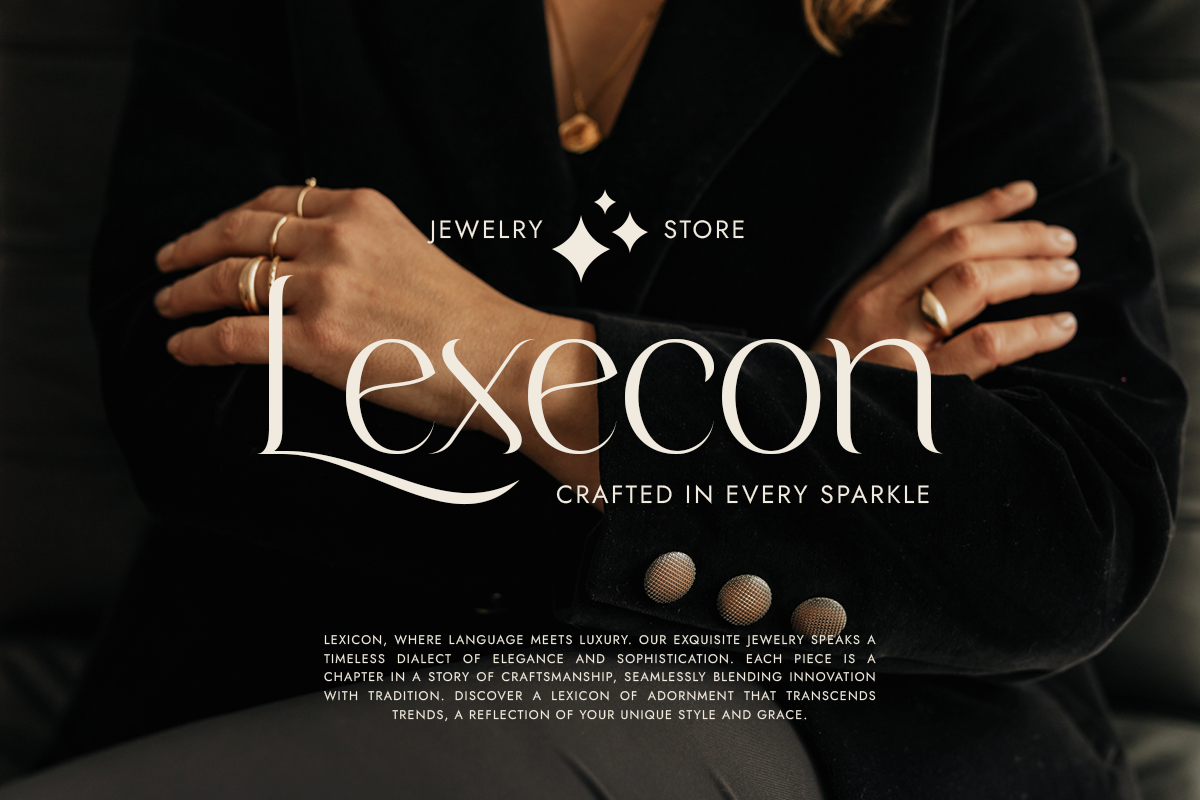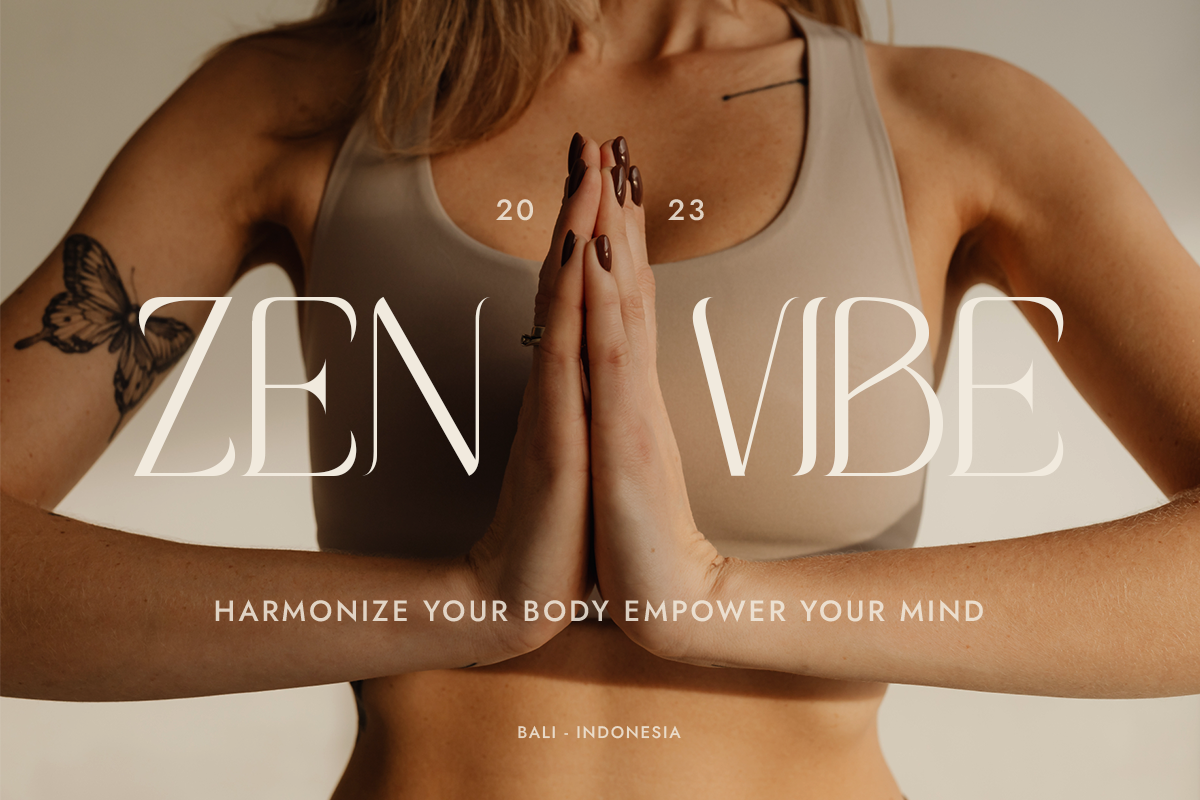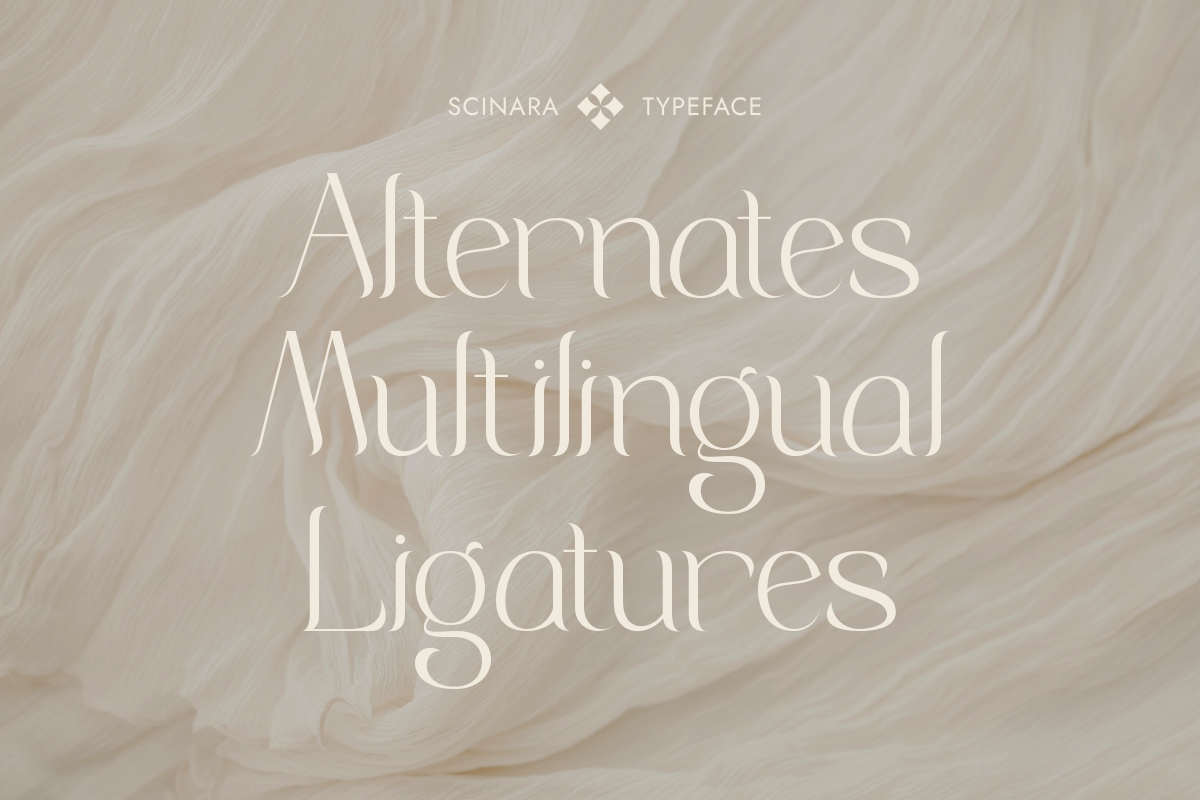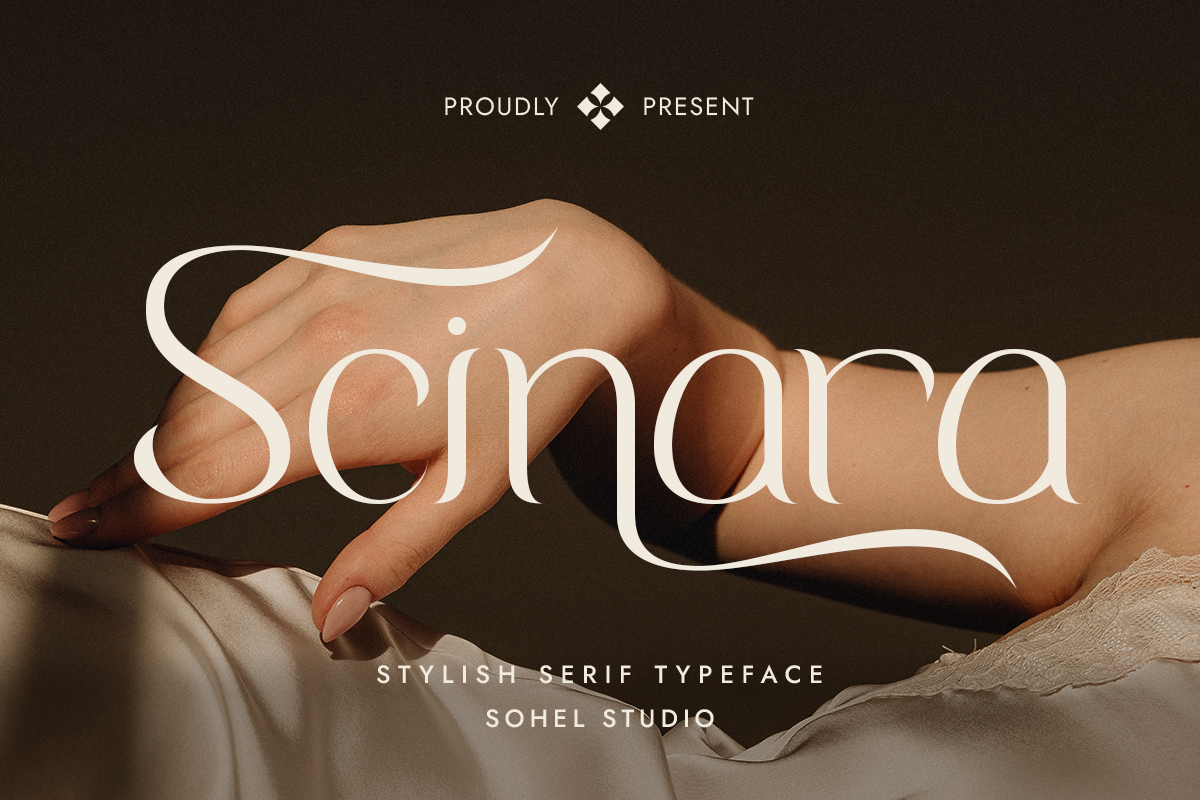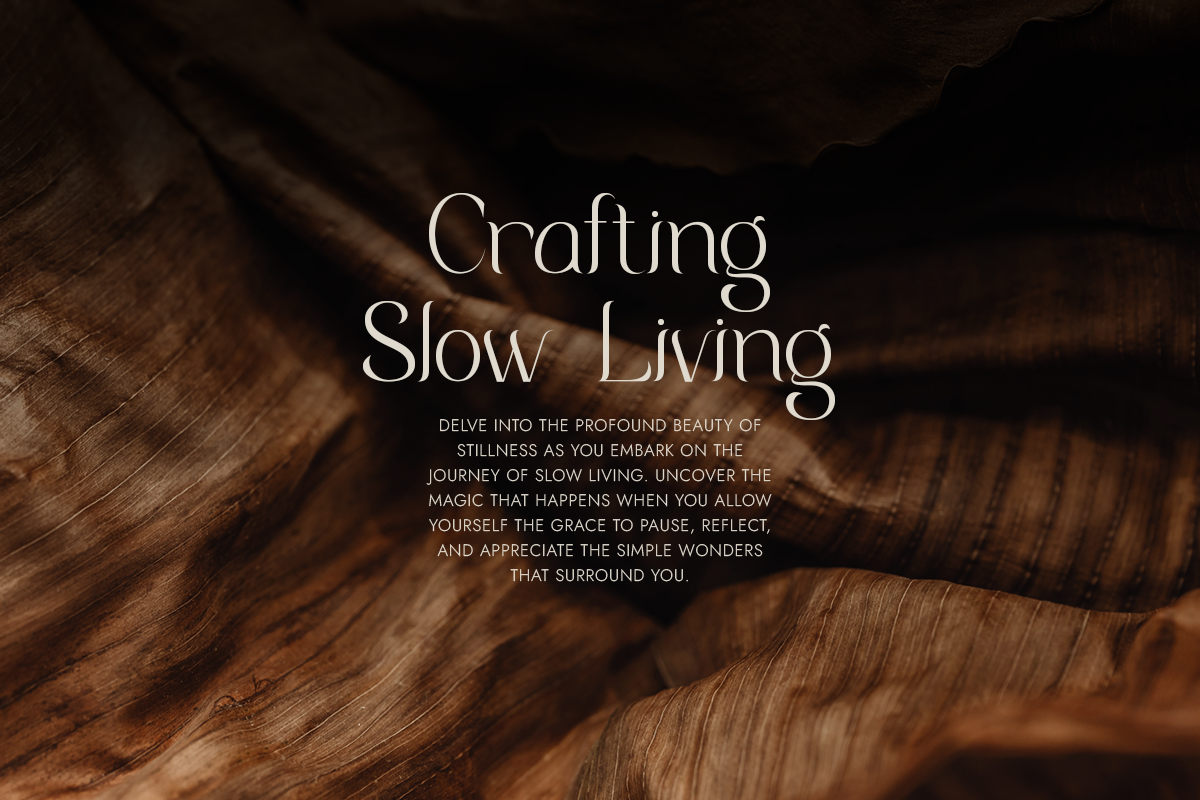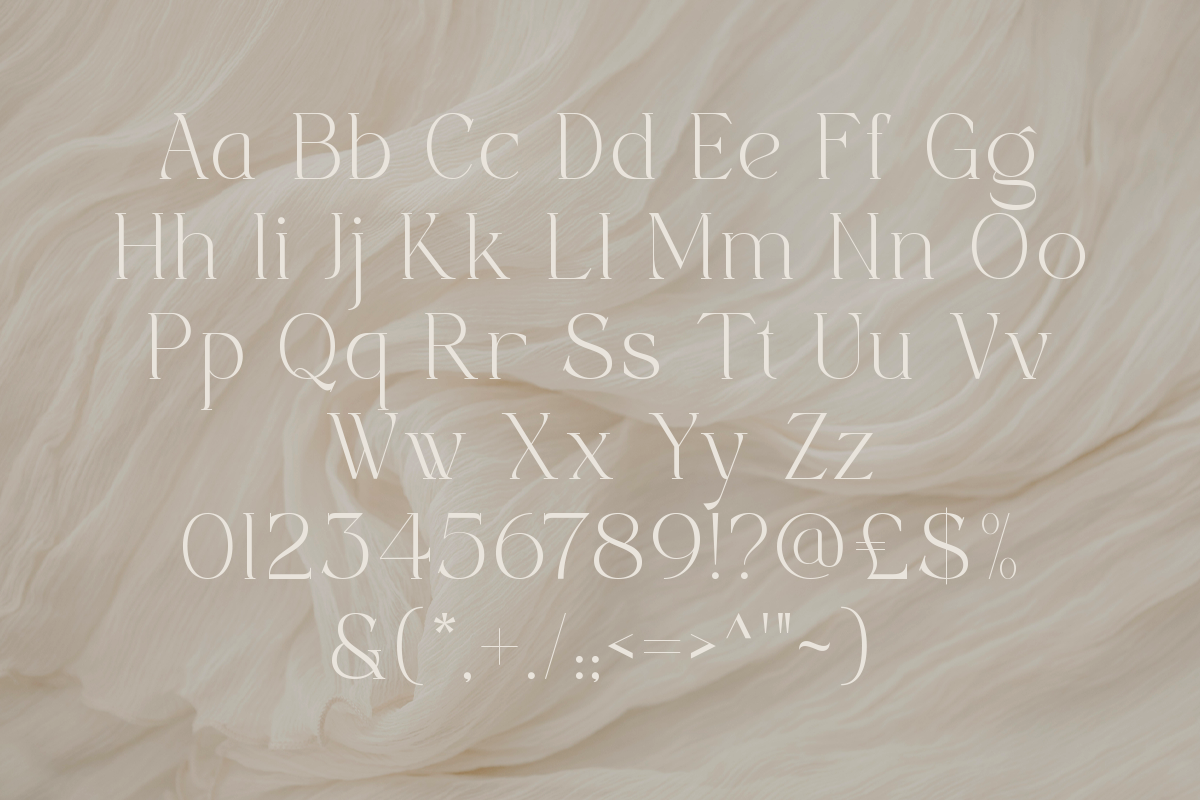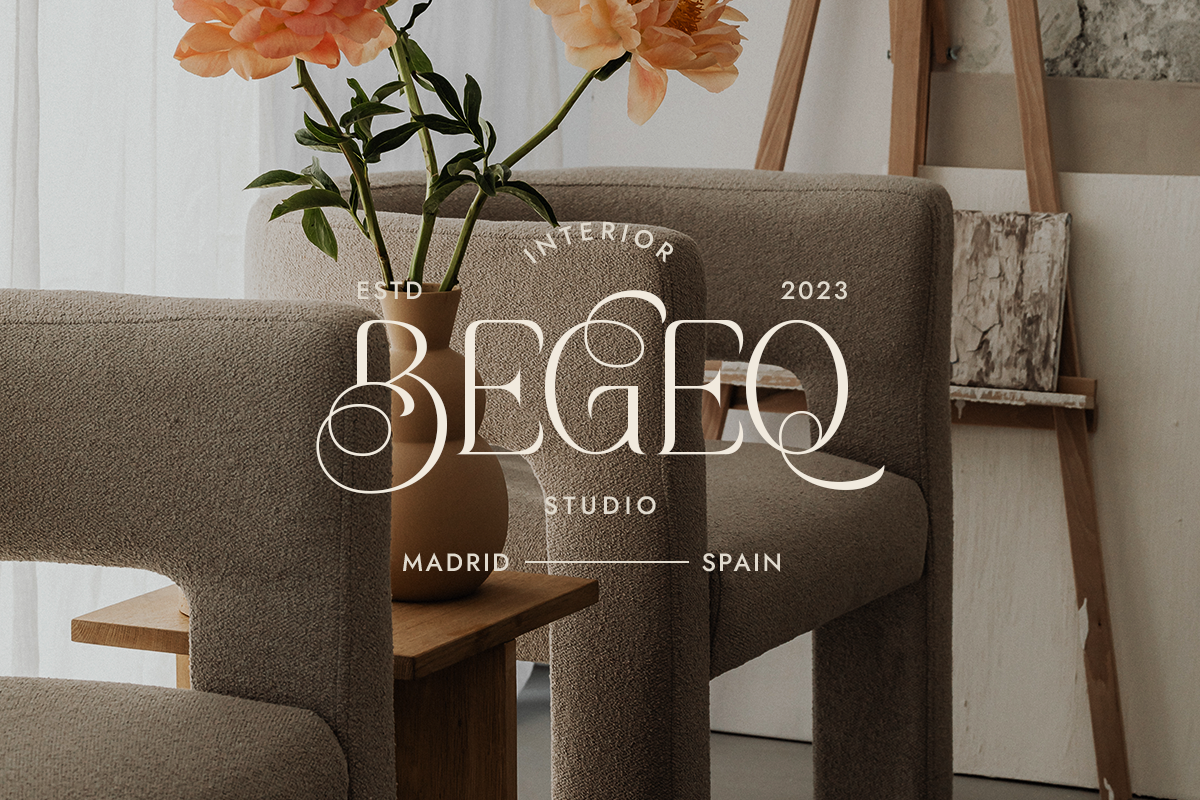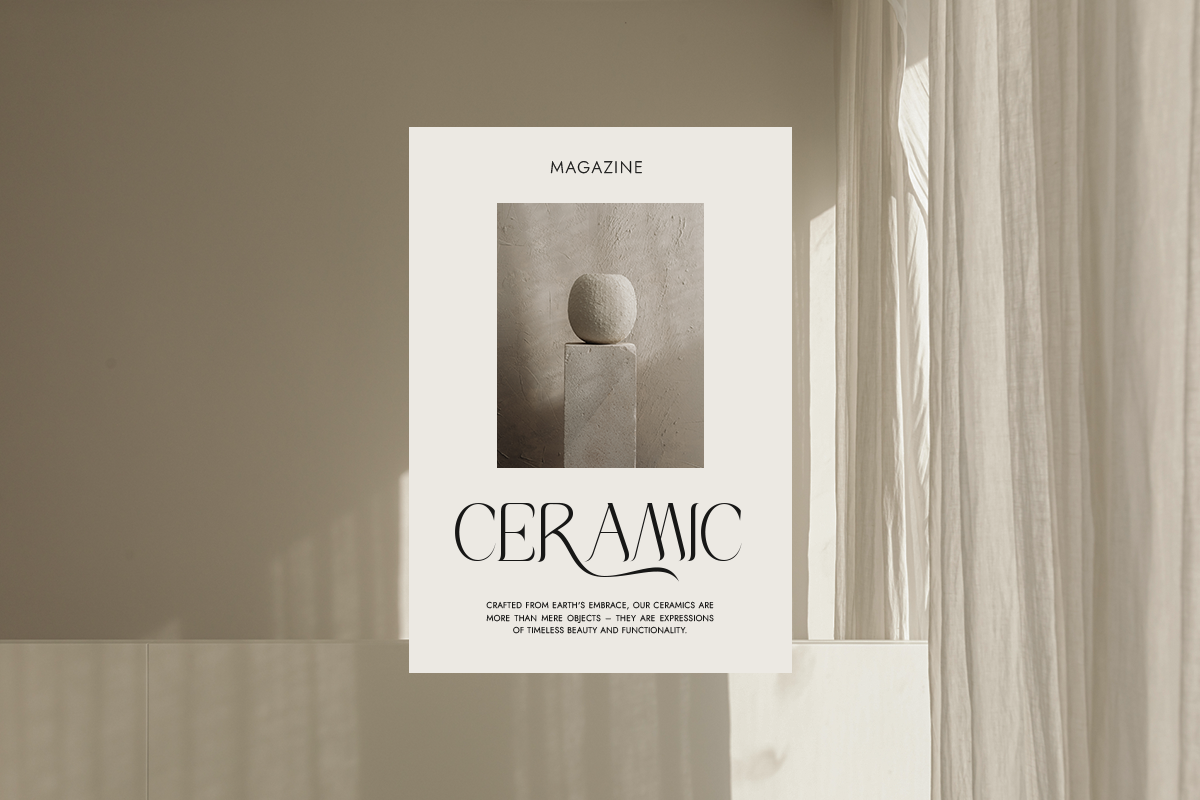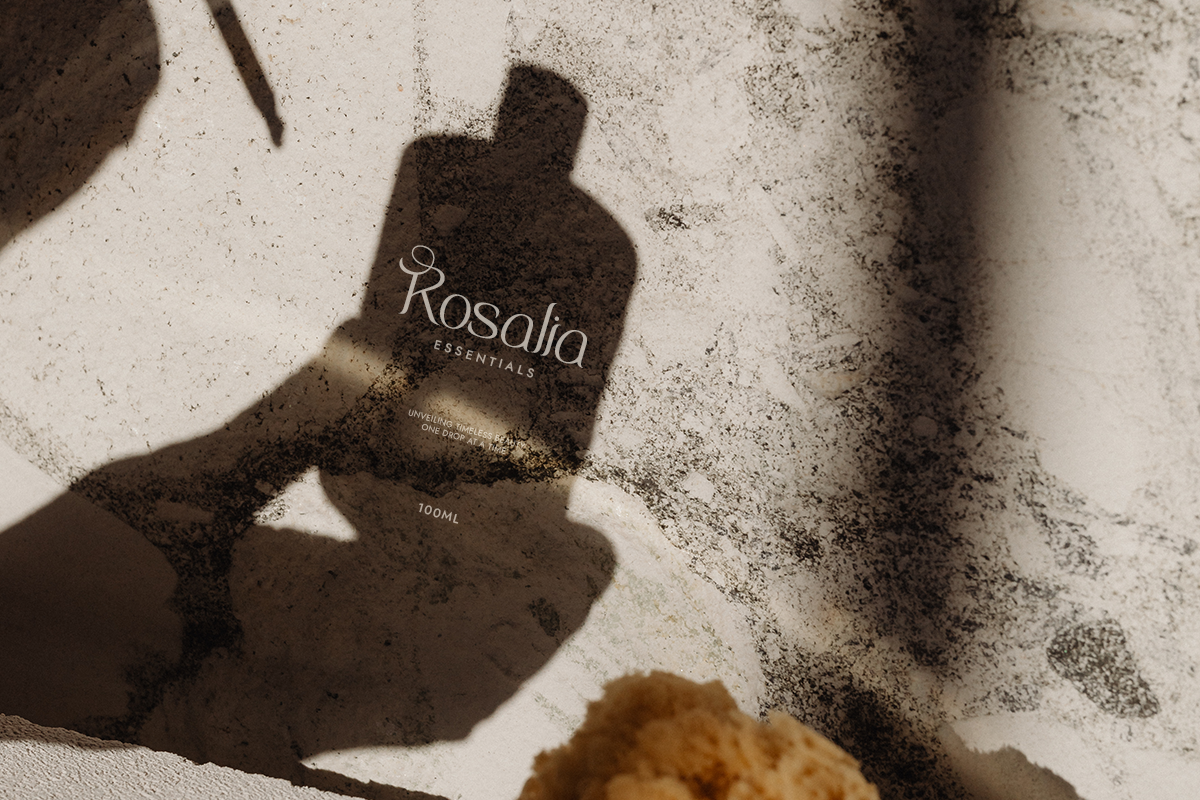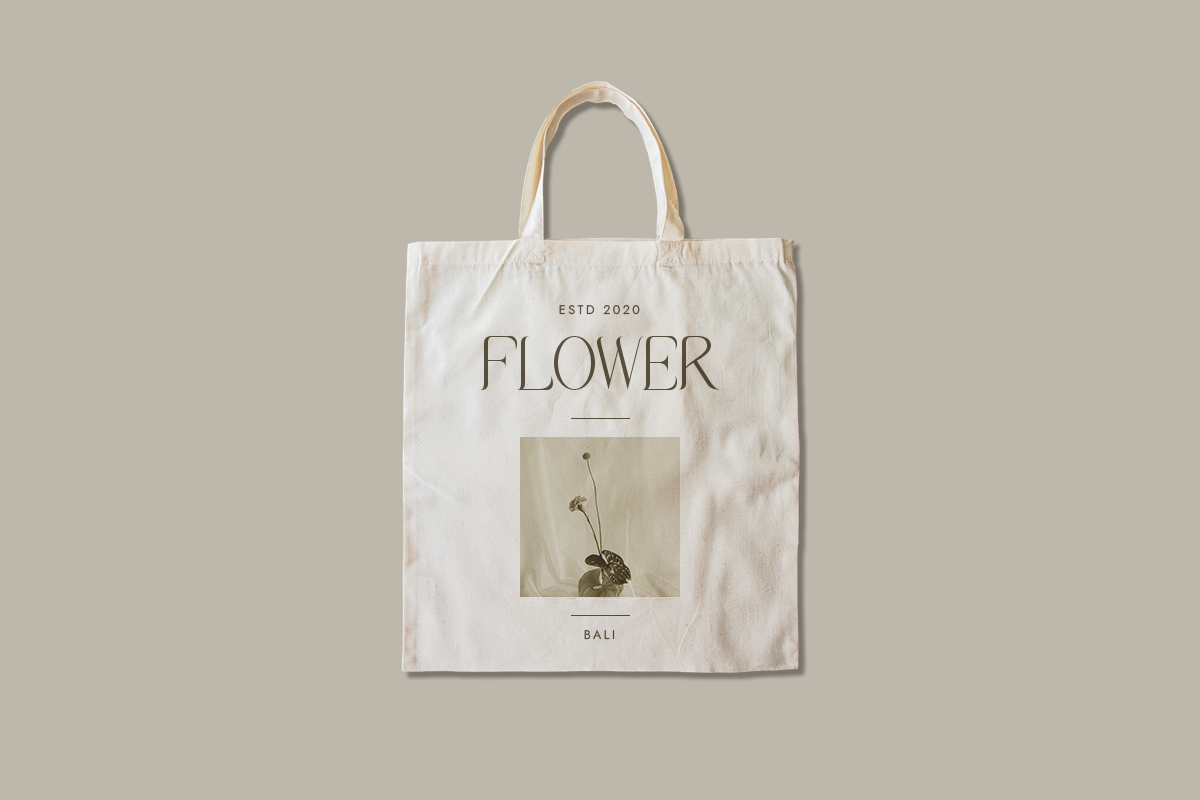
Scinara - Modern Beauty Typeface
Scinara - is a Modern Elegant Serif typeface with Unique alternative , multilingual support with perfect kerning. This typeface is perfect for an elegant & luxury logo , classy editorial design, women's magazine, fashion brand , cosmetic brand, fashion promotion , modern advertising design, invitation card, art quote, home decoration , book/cover titles, special events, Tote bag, T-shirt, Advertising and much more.
Scinara Features:
- Uppercase And Lowercase
- Alternates And Ligatures